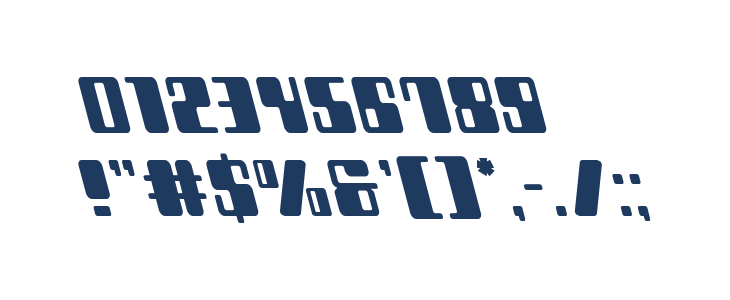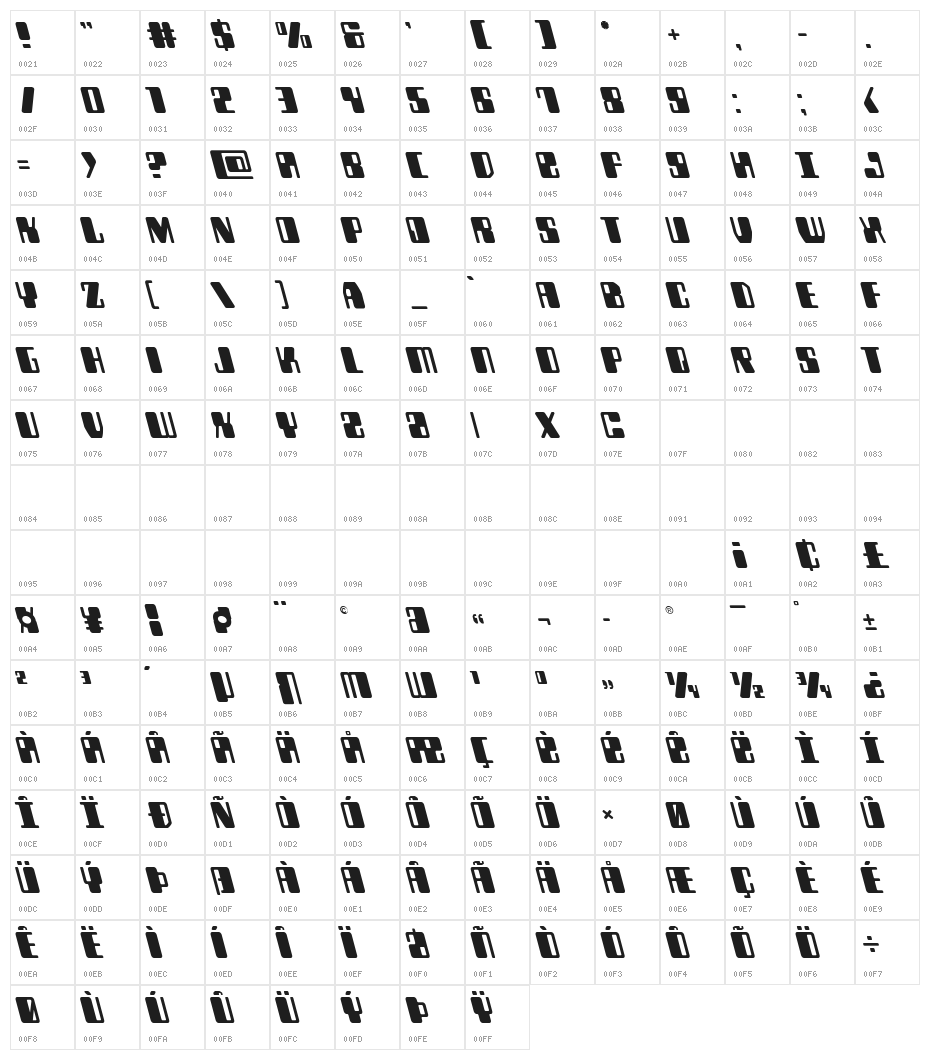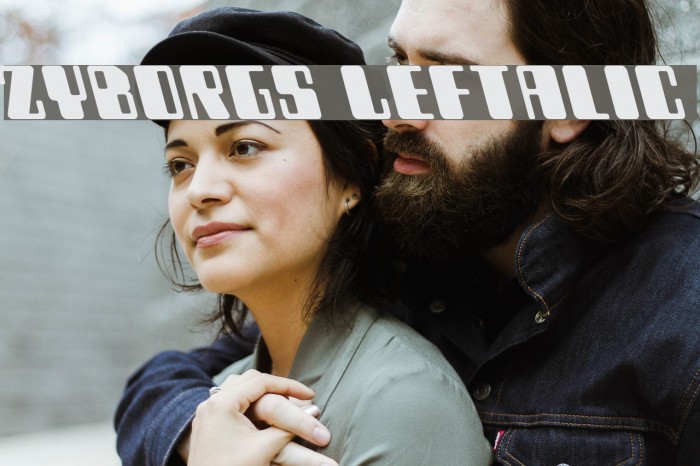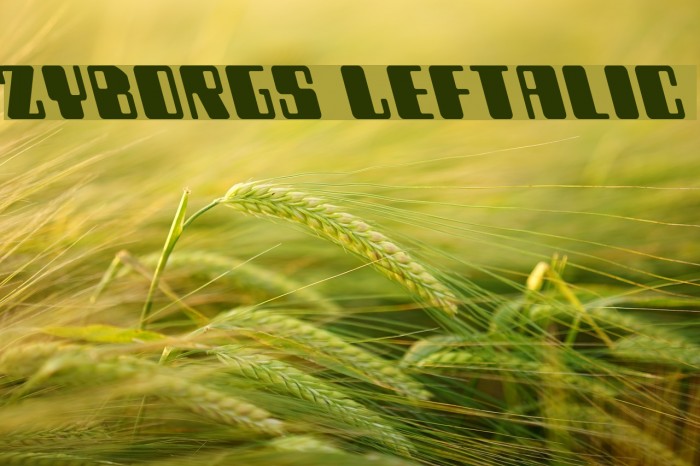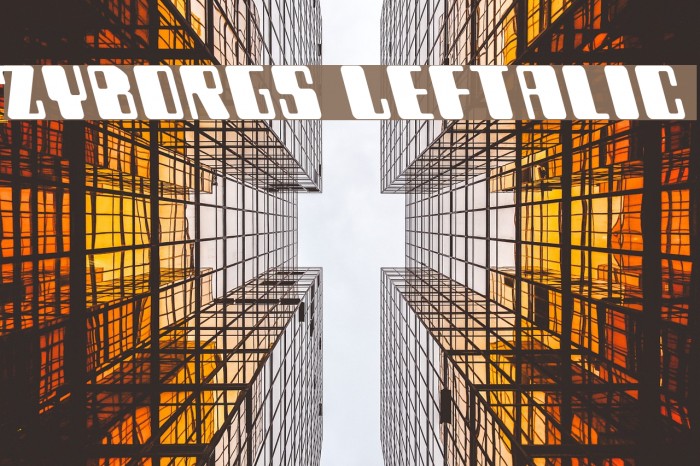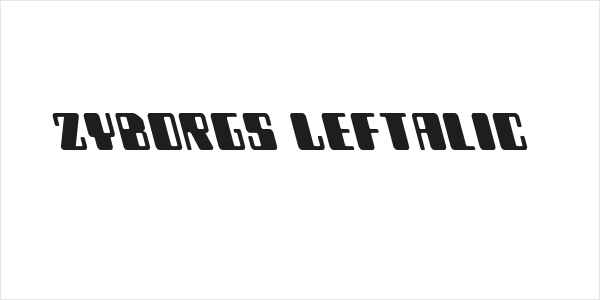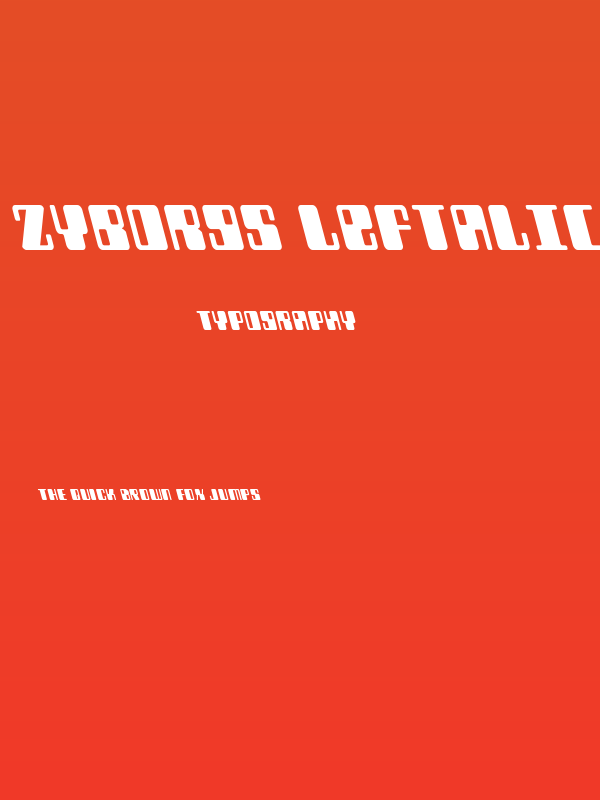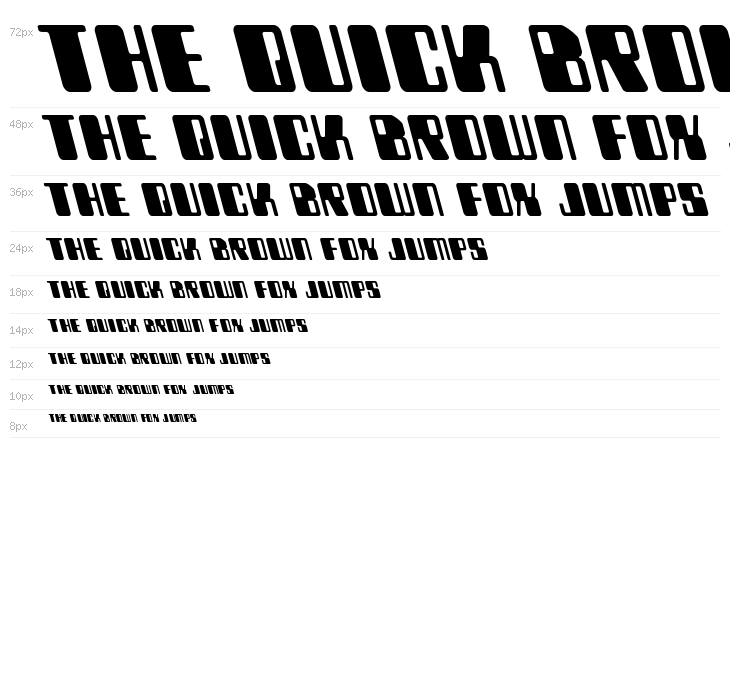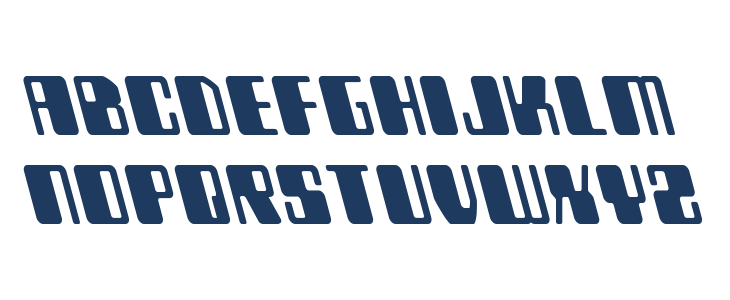
Zyborgs Leftalic Font
Zyborgs Leftalic Description
This font features a bold and futuristic design with a distinct slant to the left, giving it a dynamic and forward-moving appearance. The characters are blocky and geometric, with sharp angles and a solid, heavy weight. The uppercase and lowercase letters maintain a consistent style, with the lowercase being slightly smaller but equally bold. The numbers and special characters follow the same design principles, ensuring uniformity across all glyphs. The font's unique style makes it stand out, suitable for projects that require a modern and edgy aesthetic.